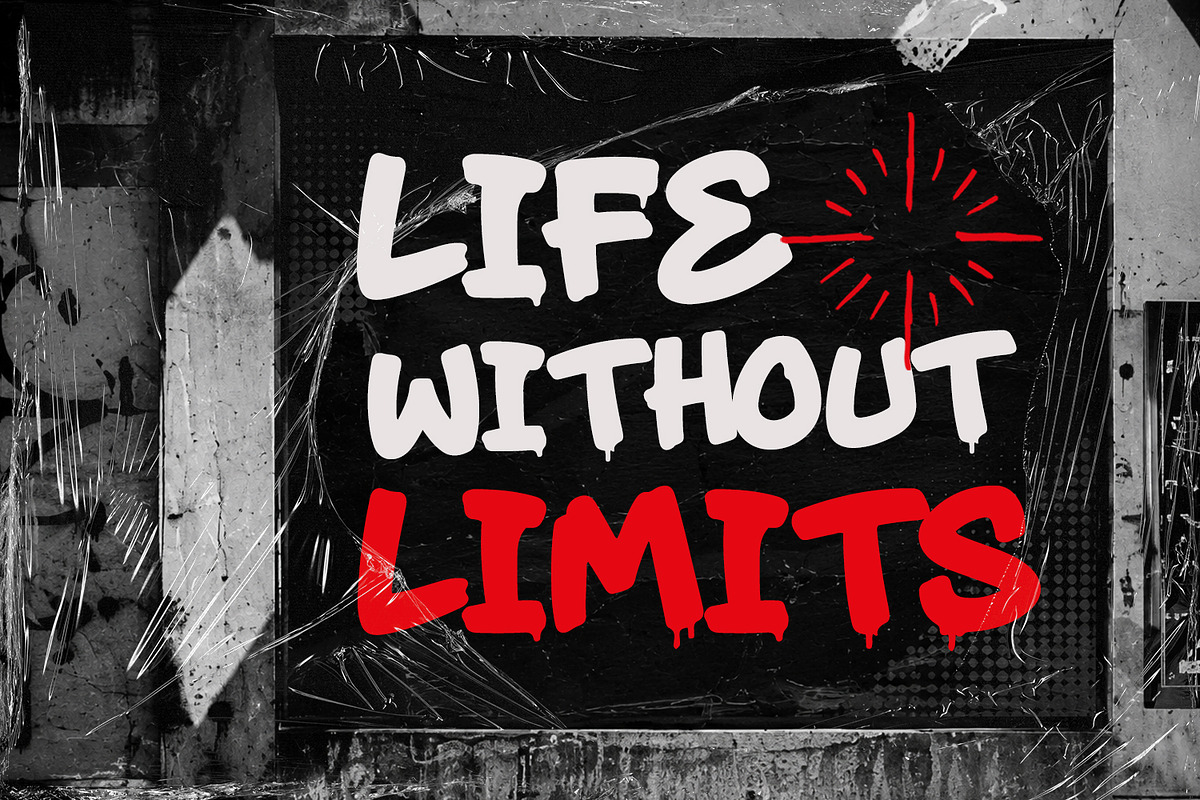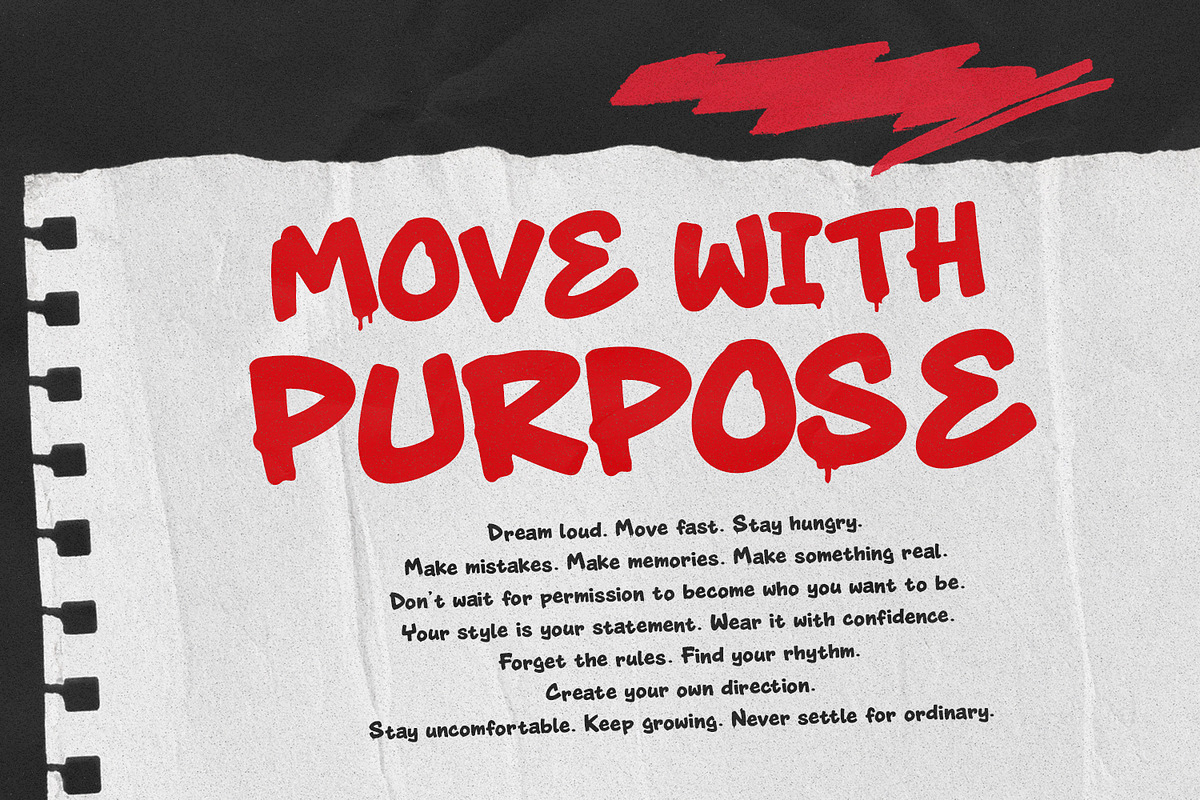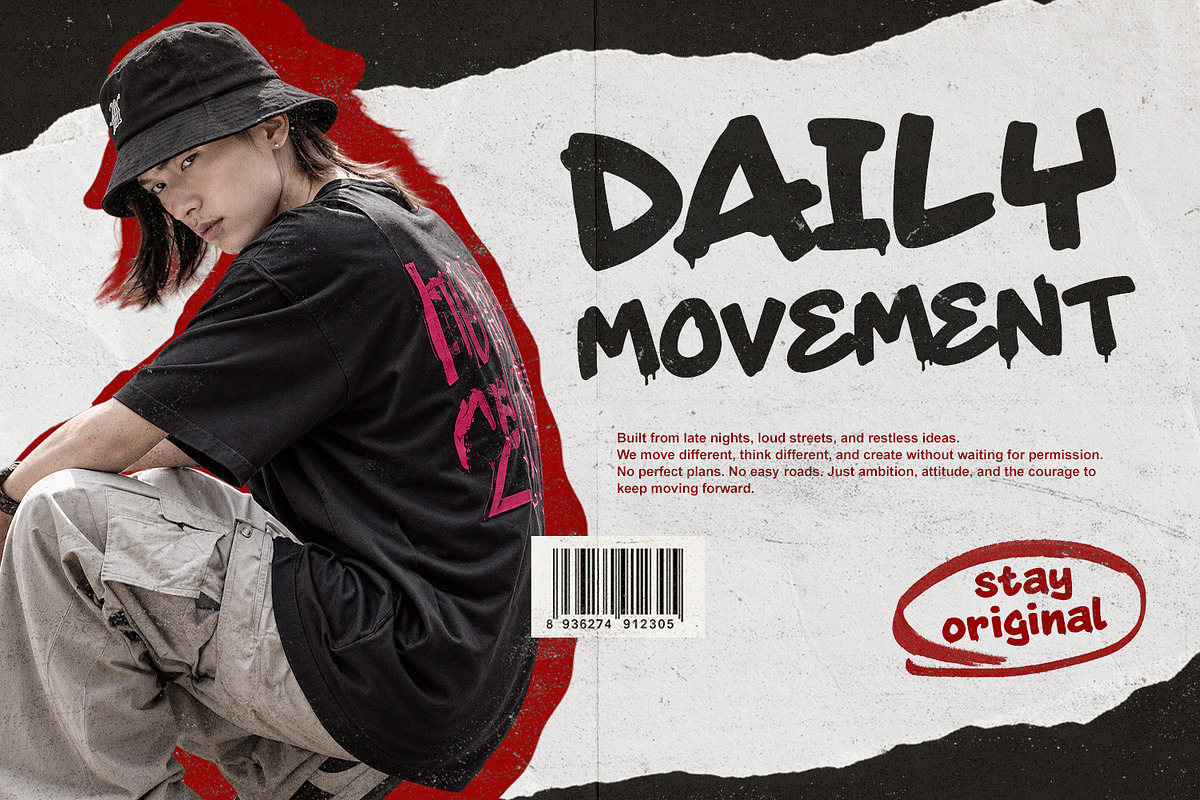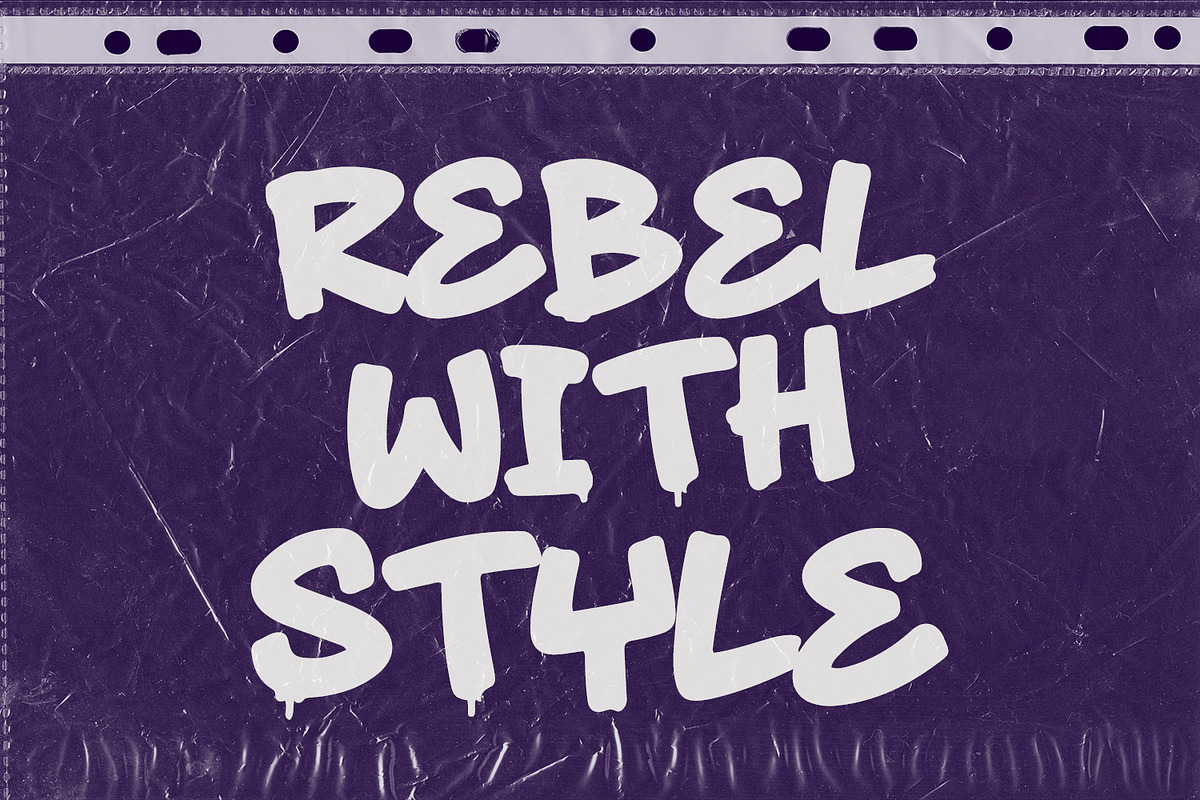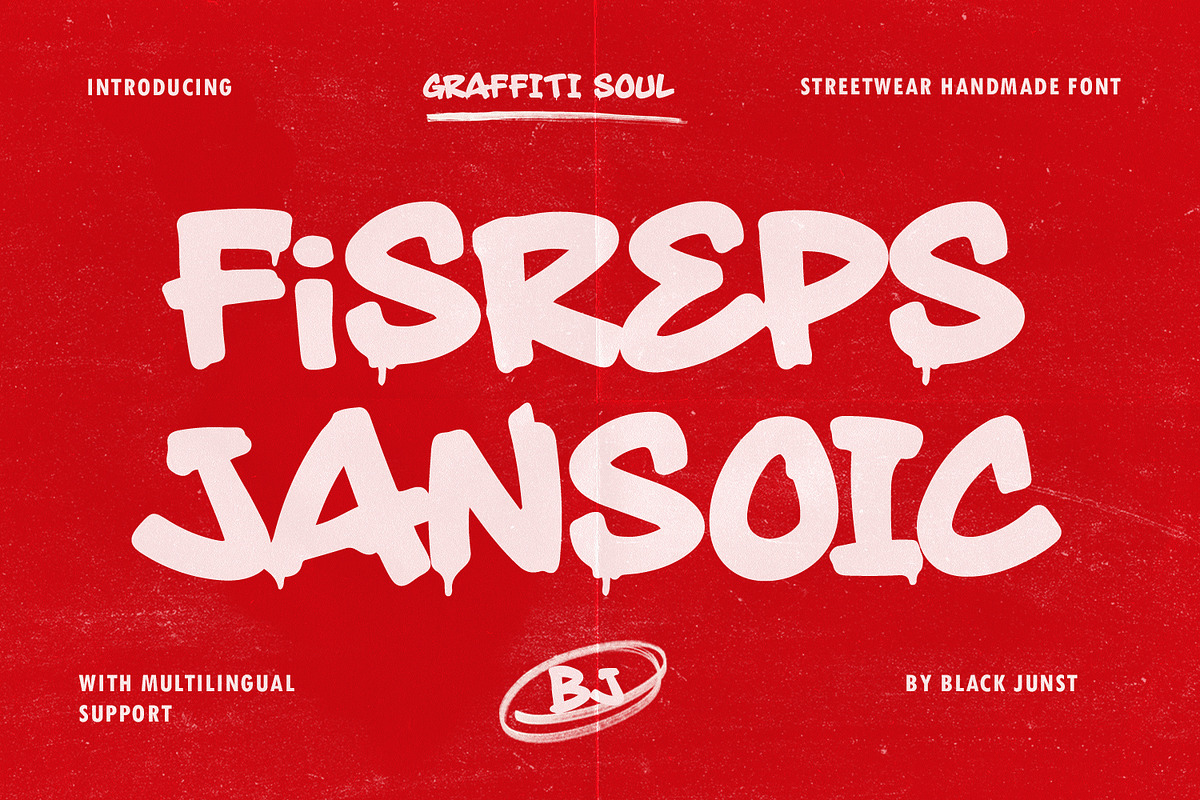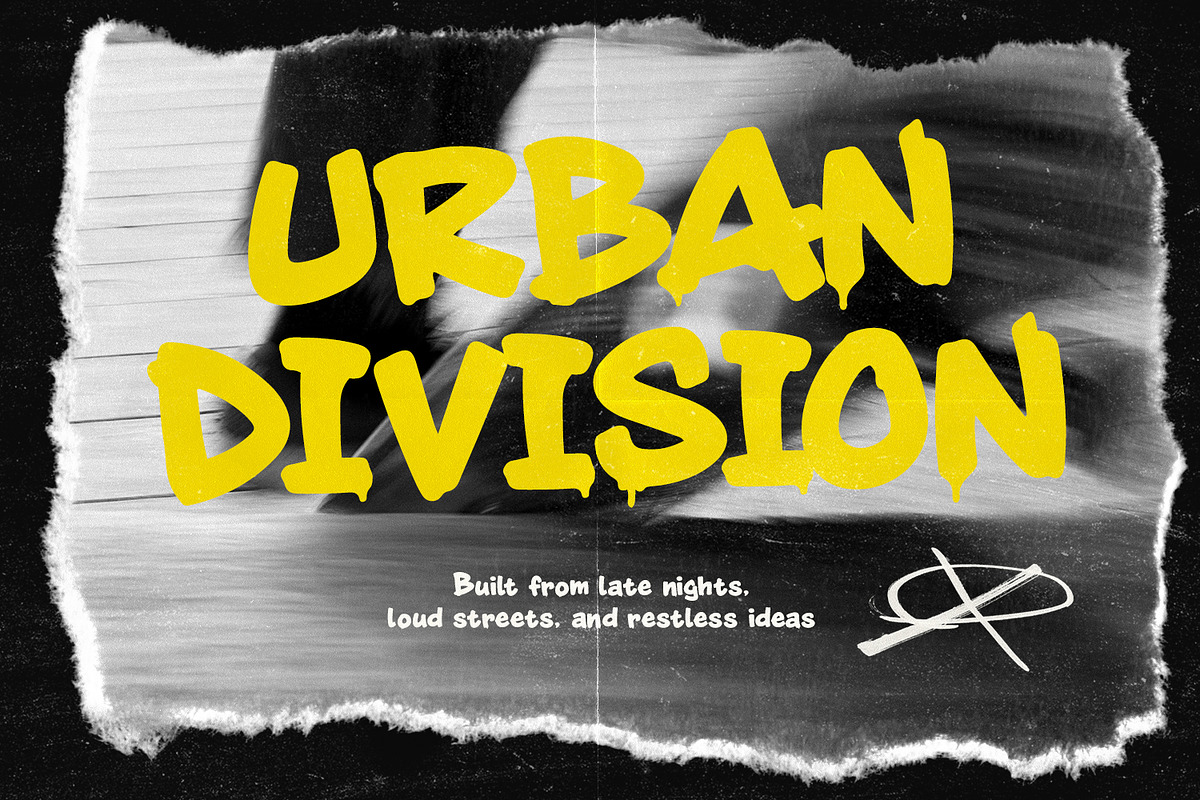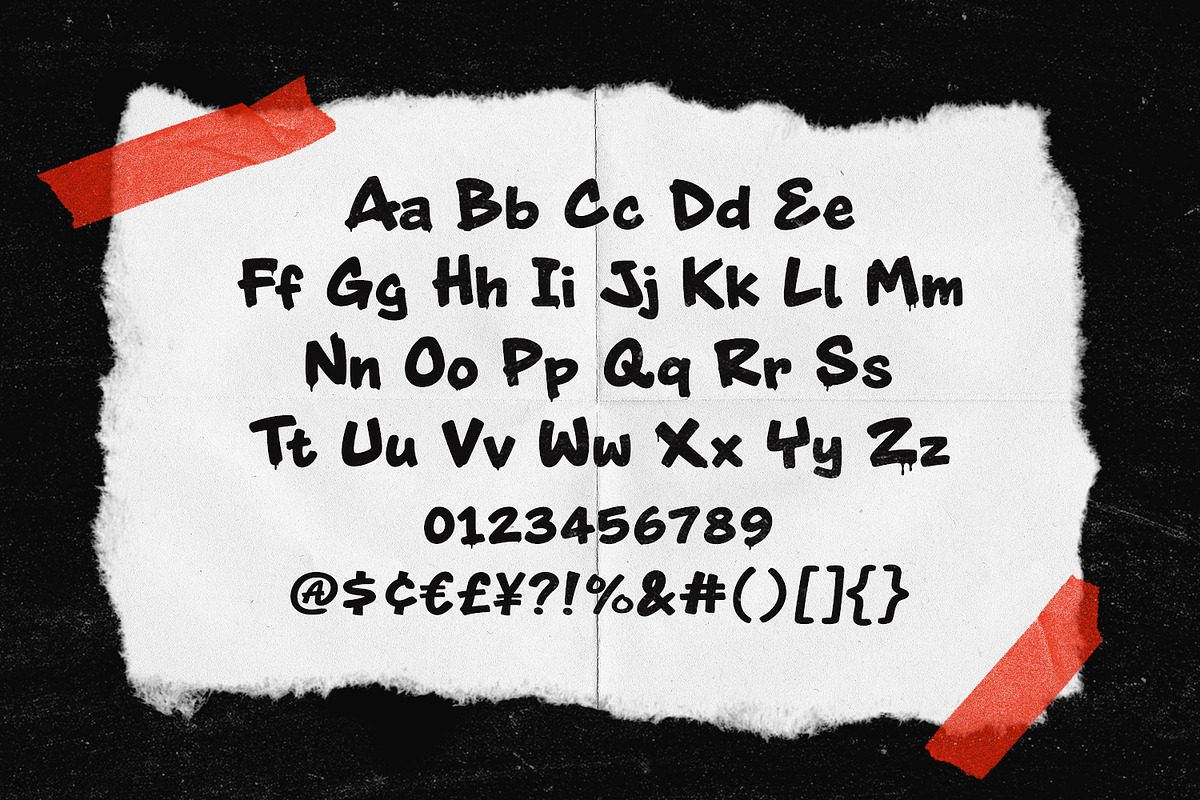
Fisreps Jansoic – Streetwear Font
Fisreps Jansoic – Graffiti Streetwear Font
Fisreps Jansoic is a bold handmade graffiti display font created for designers who want raw street energy, expressive lettering, and an authentic urban attitude. Its chunky shapes, irregular curves, drippy details, and hand-drawn character give every word a strong graffiti-inspired personality.
Perfect for streetwear branding, clothing graphics, T-shirt designs, posters, album artwork, logos, stickers, packaging, social media graphics, skatewear, urban branding, and bold advertising headlines.
Fisreps Jansoic works especially well when you need typography that feels rebellious, energetic, handcrafted, and instantly noticeable. The organic letterforms create a natural handmade appearance while maintaining strong visual impact at large display sizes.
Perfect For :
Streetwear & apparel branding
T-shirt and hoodie designs
Graffiti artwork
Urban logos
Posters & flyers
Album & music artwork
Skate & lifestyle branding
Stickers and merchandise
Packaging design
Headlines and display typography
Font Style
Graffiti Display • Streetwear • Handmade • Hand Drawn • Urban • Drippy • Bold • Raw • Expressive
Fisreps Jansoic includes multilingual support, making it a versatile choice for designers working across different markets and creative projects.